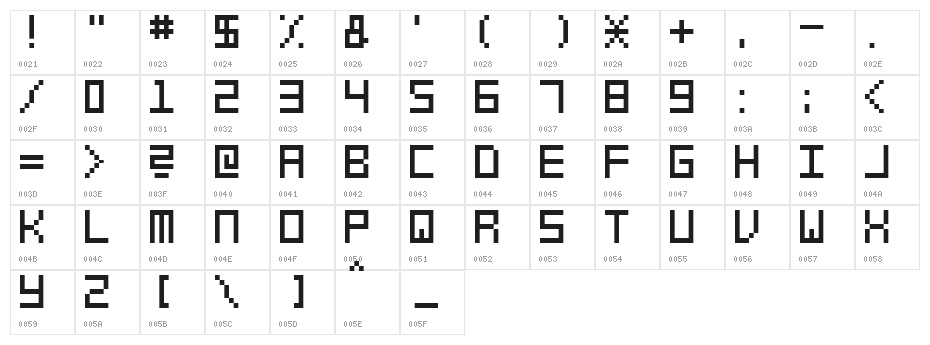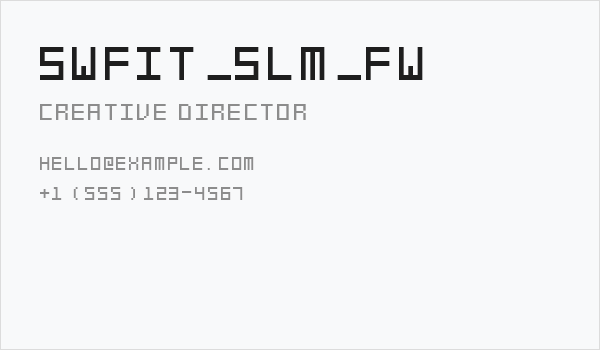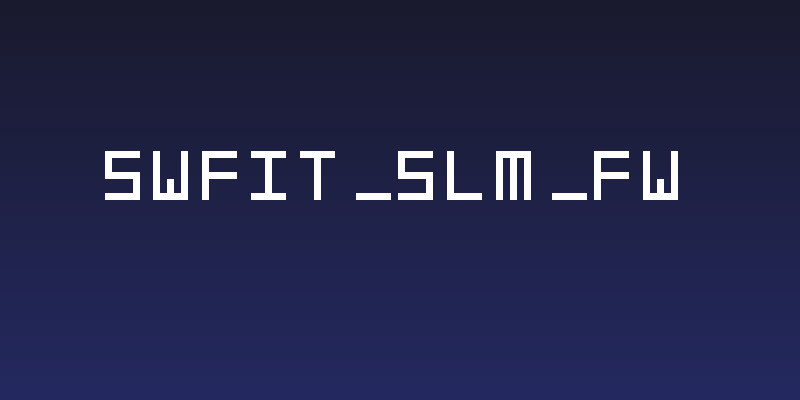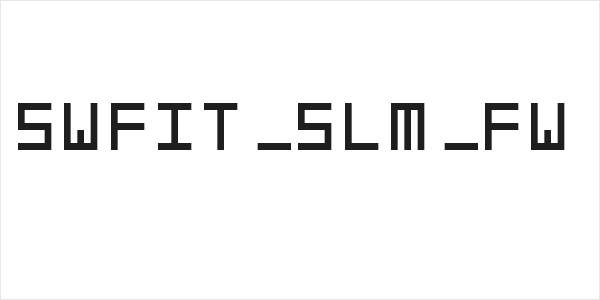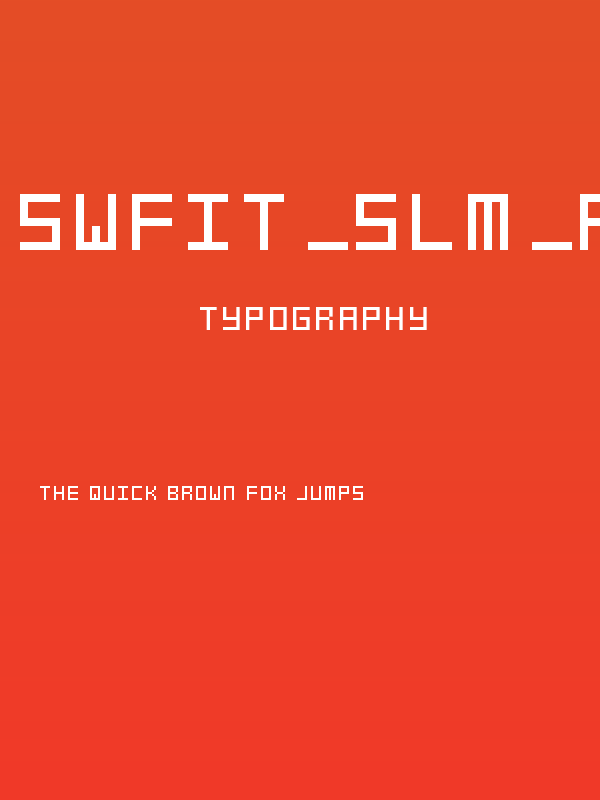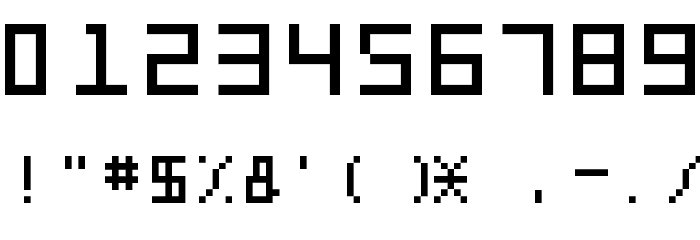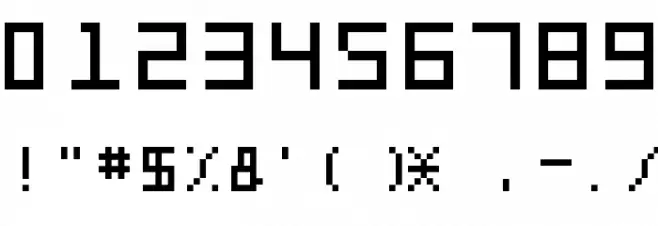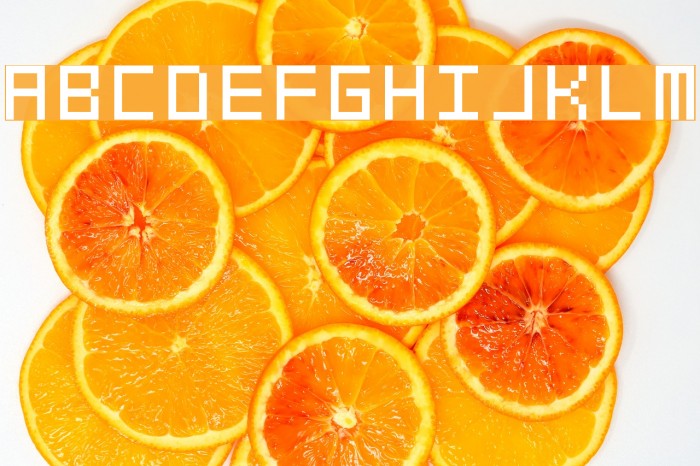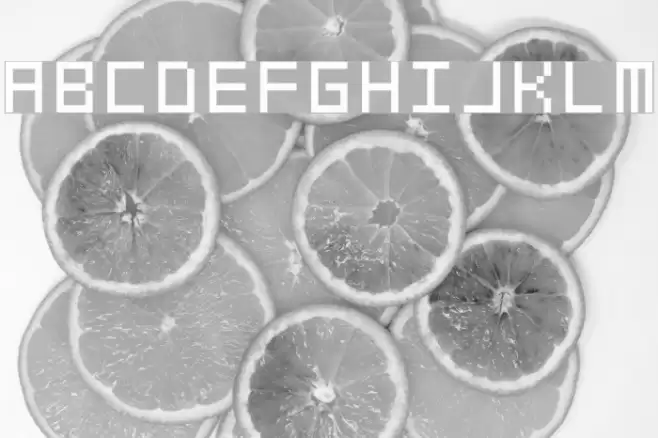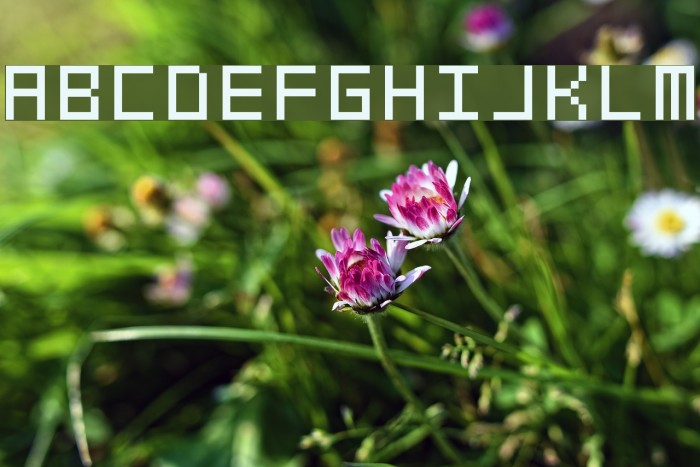
swfit_slm_fw Font
swfit_slm_fw Description
This font features a pixelated, blocky design reminiscent of early digital displays and retro video games. Each character is constructed with uniform square pixels, giving it a distinctly digital and geometric appearance. The uppercase and lowercase letters maintain consistent height and width, contributing to a monospaced feel. The numerals and special characters follow the same pixelated style, ensuring uniformity across all glyphs. This font's simplicity and clarity make it ideal for digital applications where readability and a nostalgic aesthetic are desired.
| Overall Style | Retro, Digital |
| Use Case | Headlines, Digital displays, Retro-themed projects |
| Proposed Projects | Ideal for retro video game design, digital art projects, and tech-themed branding. |